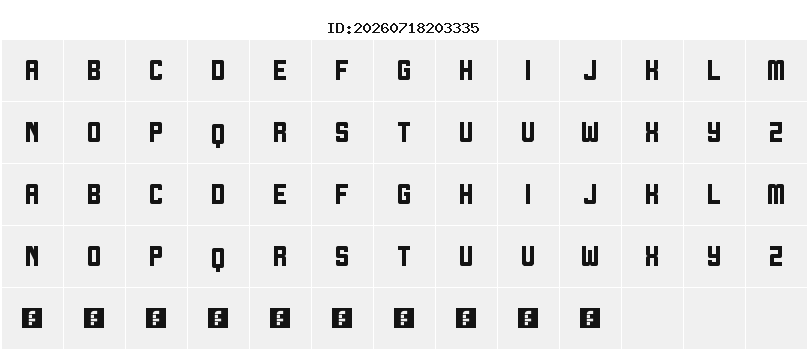
• Font Name: Crash Test
• Designer: GeronimoFonts
• Description: ‚ÄúCrash Test‚Äù was built with FontStruct
About Crash Test.ttf
Crash Test.ttf is a modern, elegant sans-serif font designed for ultimate readability and visual harmony. Perfect for branding, headlines, web design, and print materials.